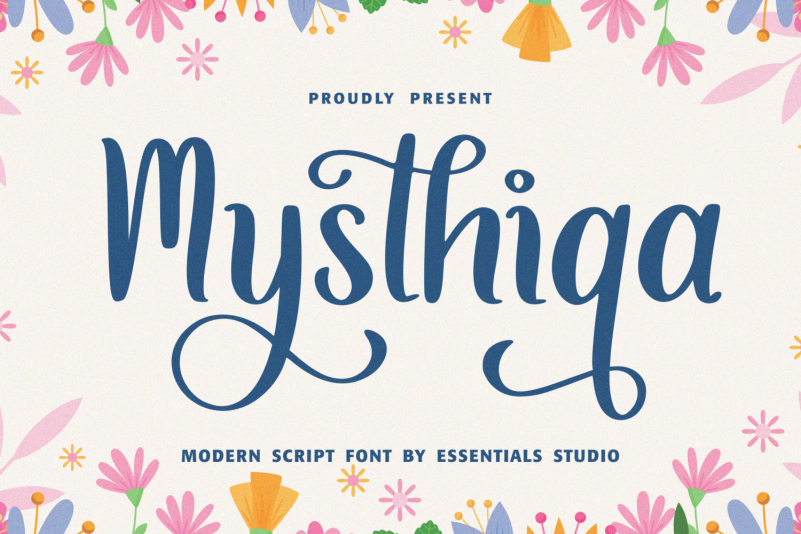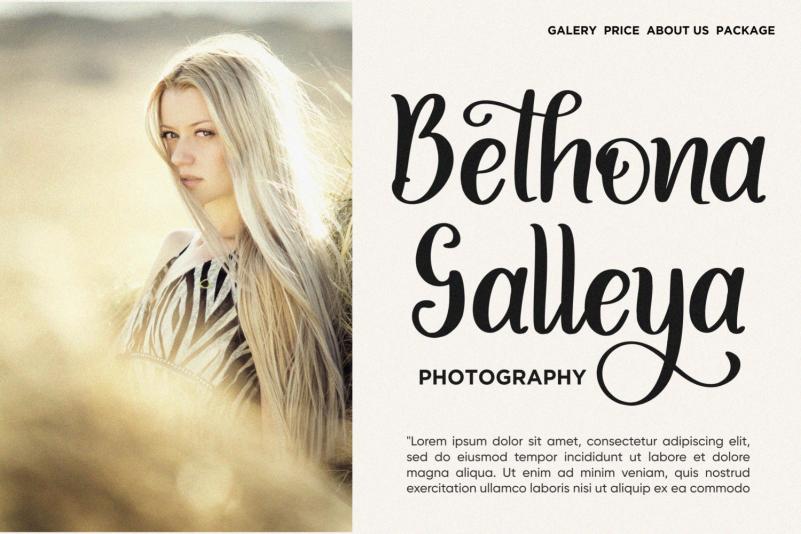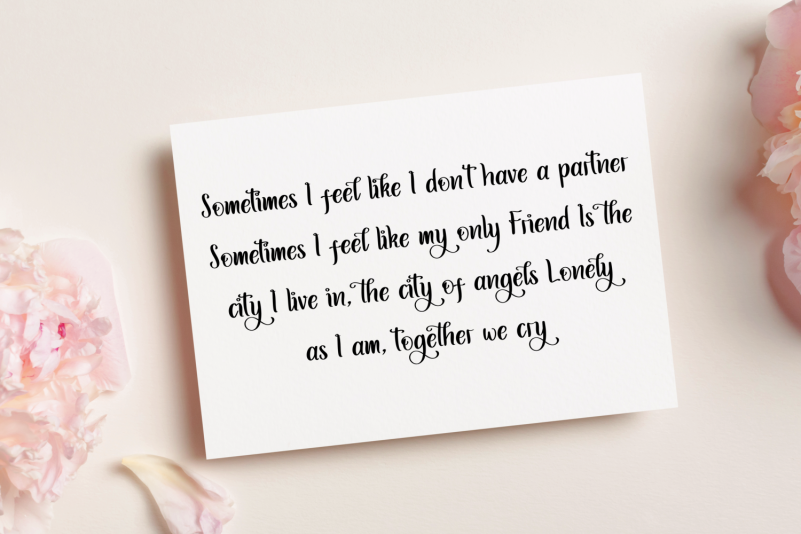
Mysthiqa Font
Mysthiqa Font Is a Modern Script Font. Mysthiqa is perfect for product packaging, branding project, megazine, social media, wedding, or just used to express words above the background.
Designer Name: Essentials studio